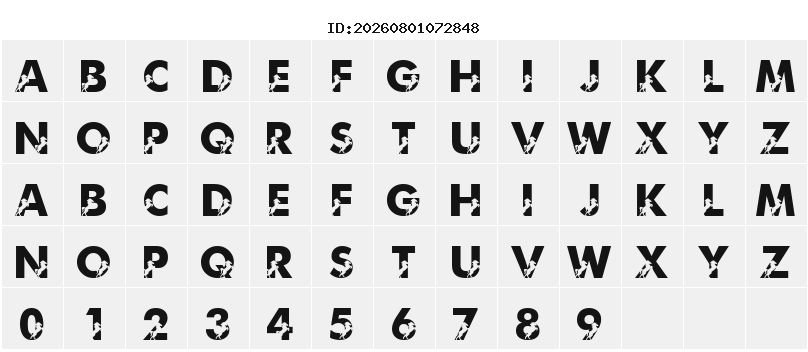
LMS Mighty Mustang Preview
• Font Name: LMS Mighty Mustang
About LMS Mighty Mustang.ttf
LMS Mighty Mustang.ttf is a modern, elegant sans-serif font designed for ultimate readability and visual harmony. Perfect for branding, headlines, web design, and print materials.